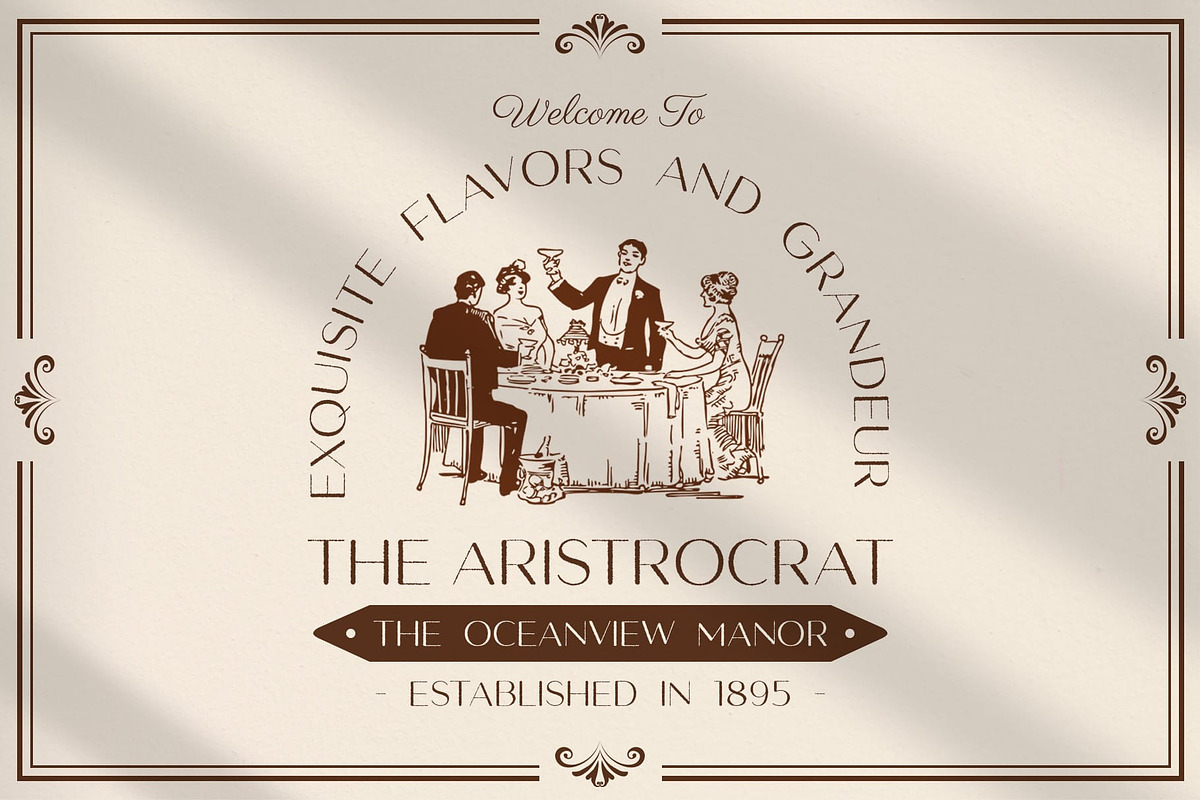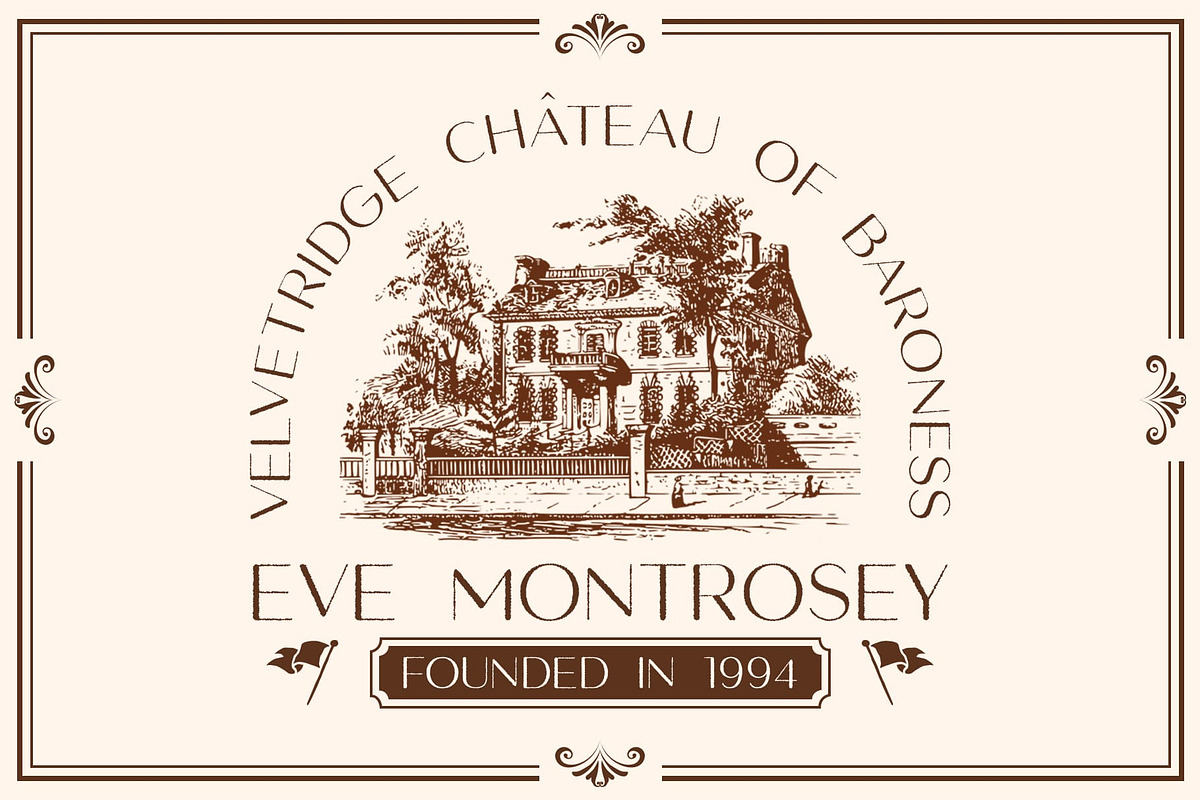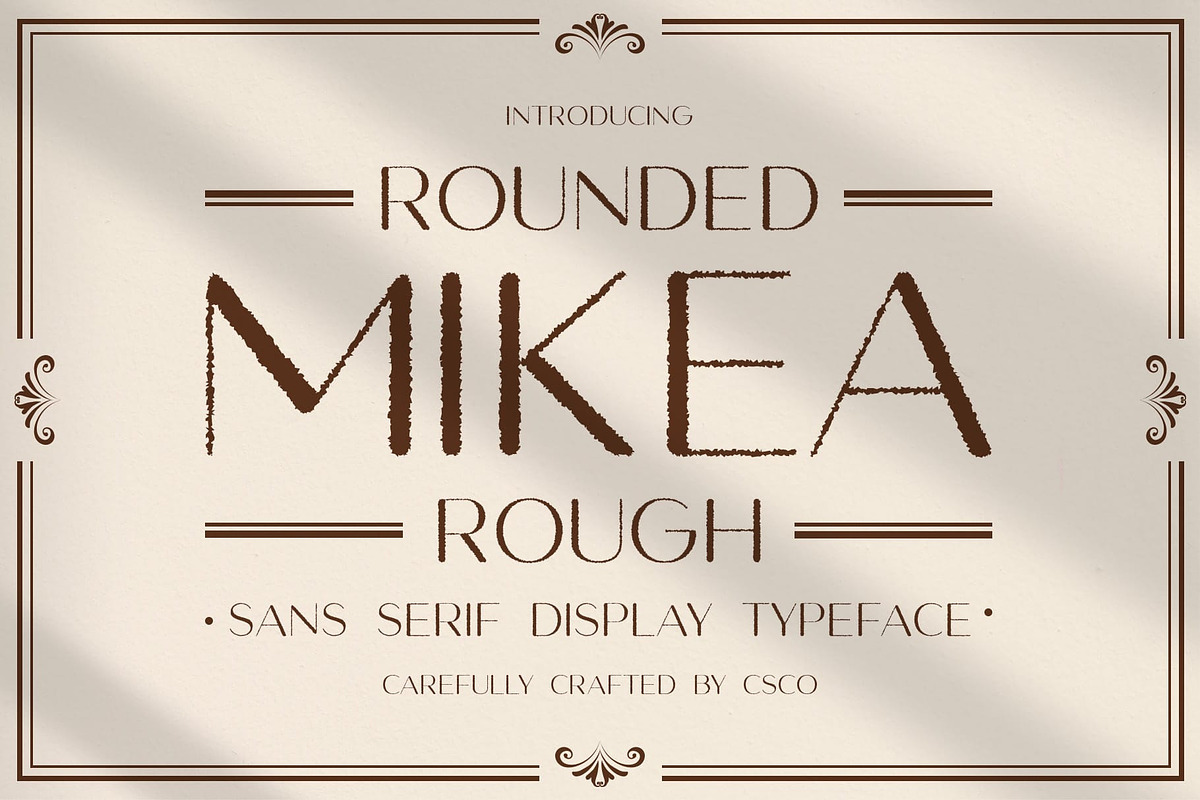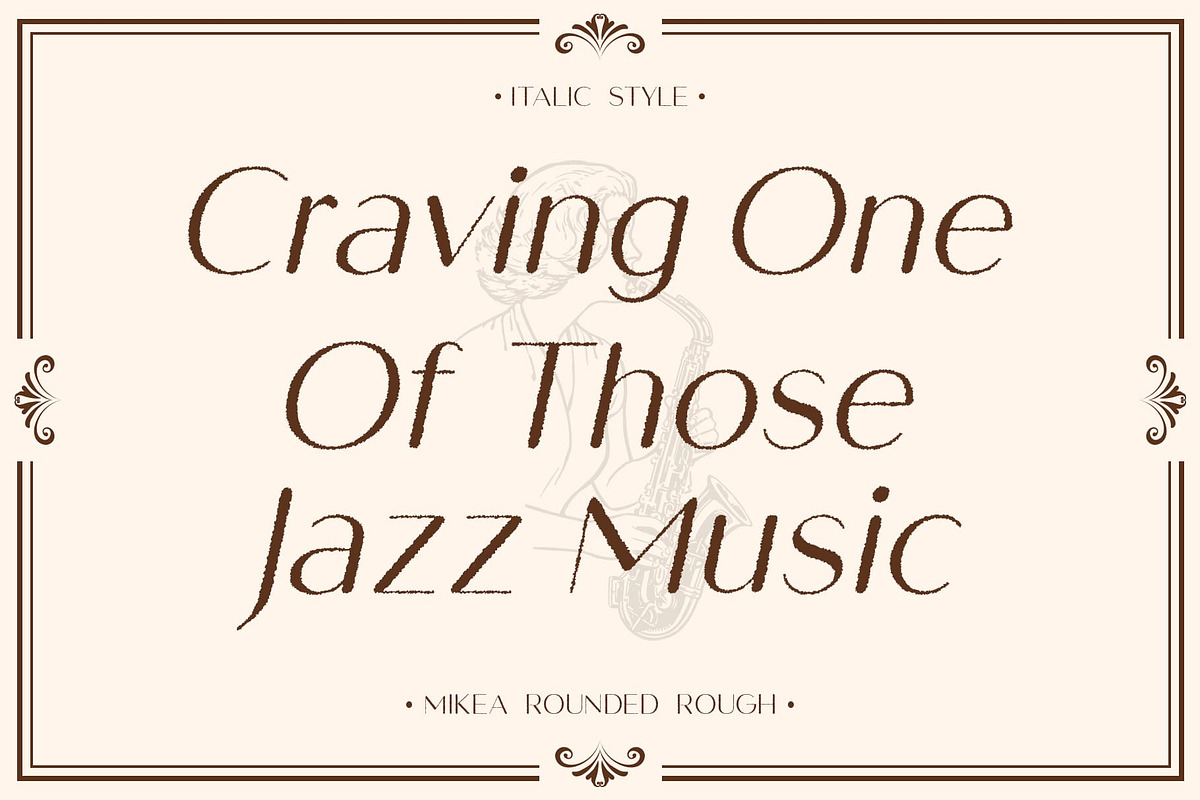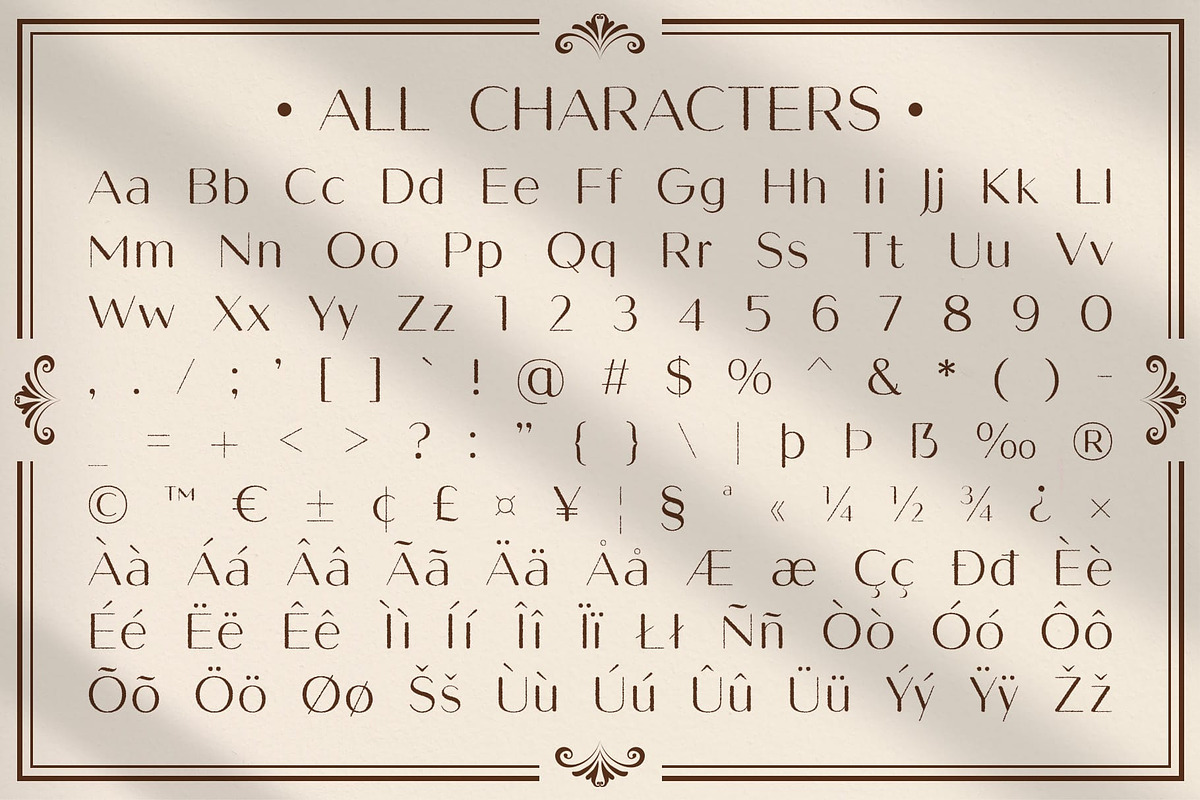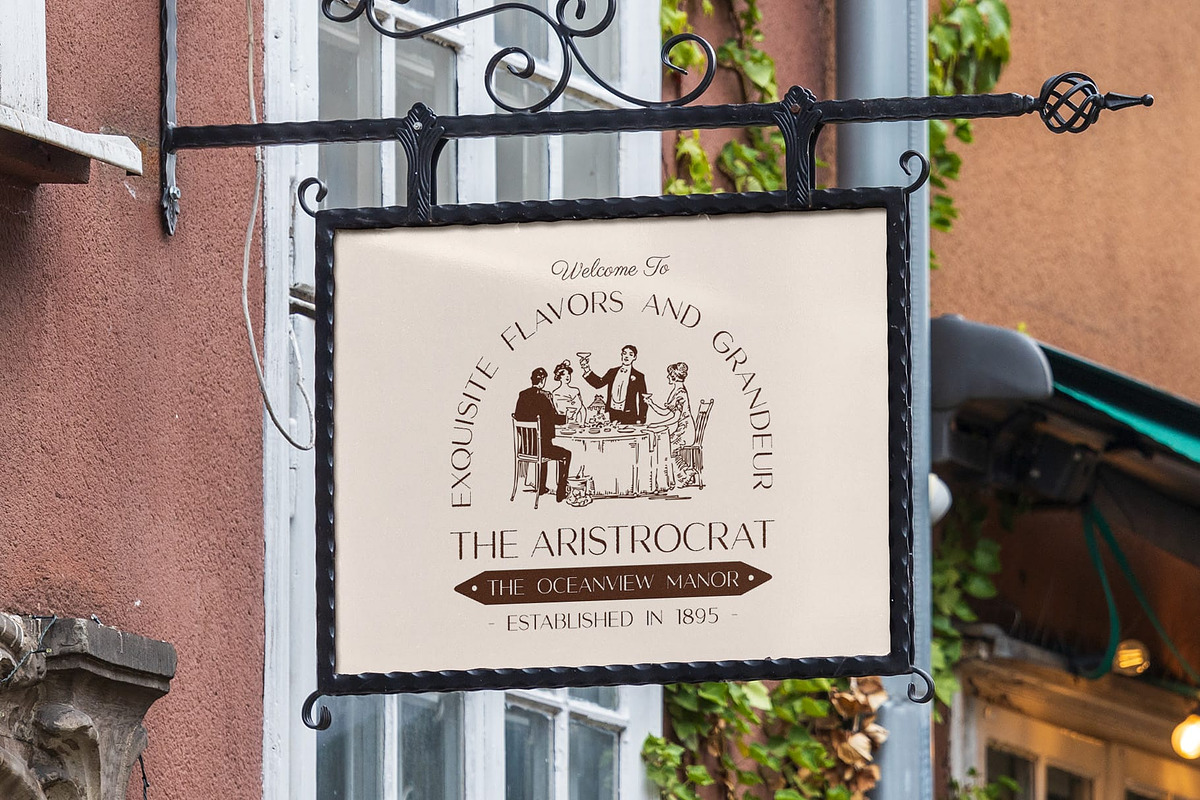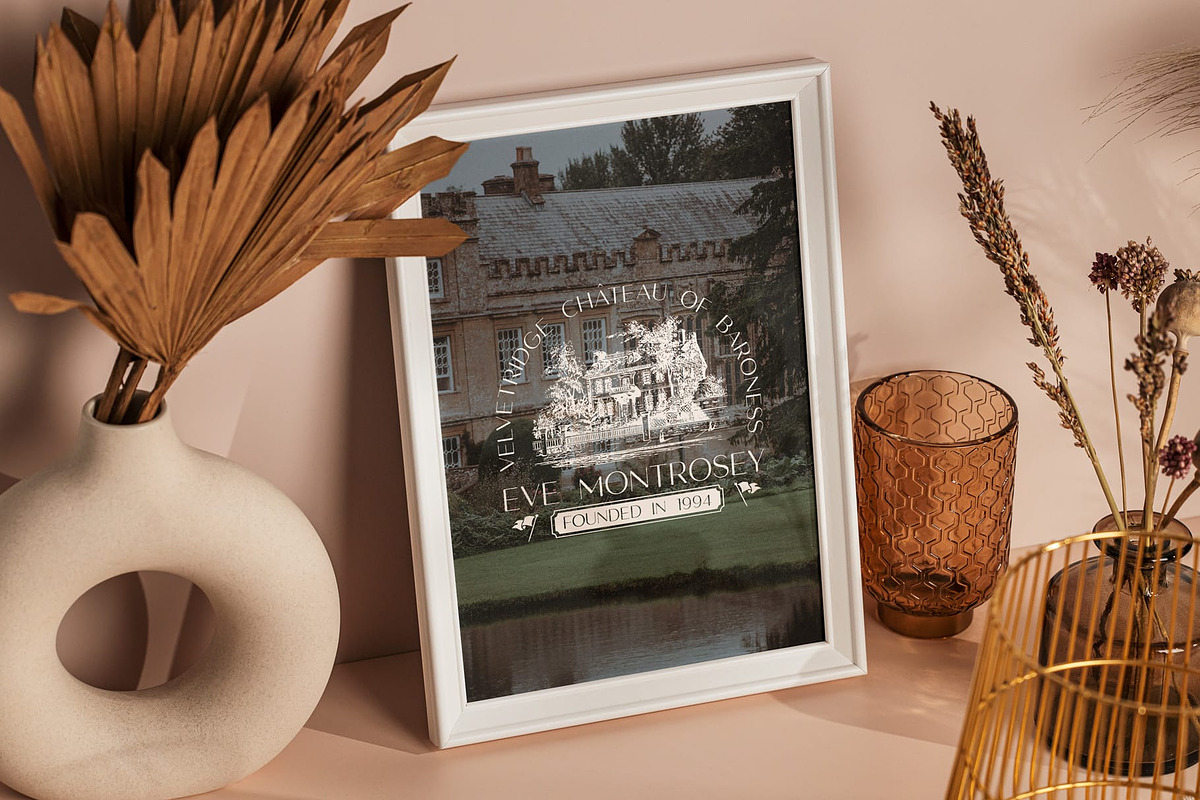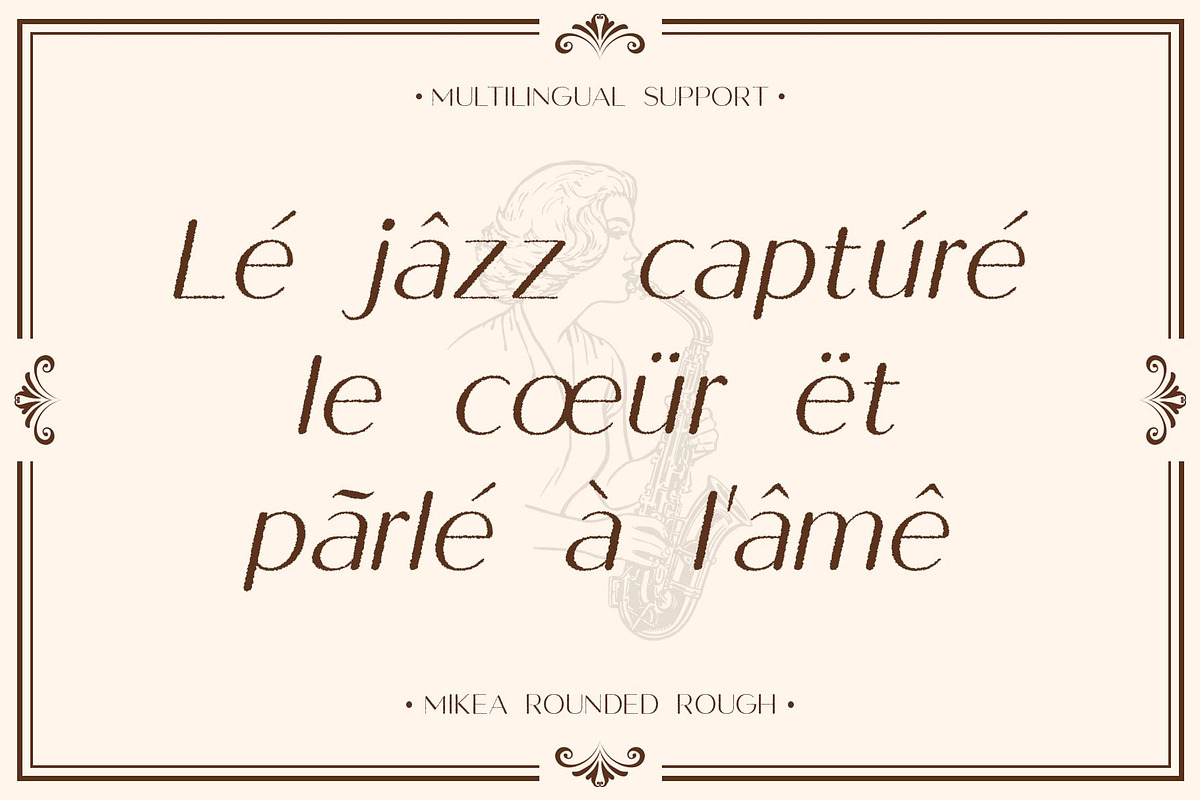
Mikea Rounded Rough
Mikea Rounded Rough Font: A Modern Sans Serif with Character
Charming Minimalism with a Playful Twist Mikea Rounded Rough is a modern sans serif font that seamlessly combines rounded, minimalist shapes with a unique rough effect, creating an elegant yet charming aesthetic. Its soft, clean lines offer a friendly and approachable vibe, making it an ideal choice for designs that aim to connect with their audience on a personal level. The rounded forms contribute to a sense of warmth, ensuring that your message is conveyed with both clarity and a touch of personality.
Distinctive Rough Texture for Added Depth The rough texture applied to Mikea enhances its character, infusing the font with a sense of depth and uniqueness. This playful imperfection sets it apart from traditional sans serifs, allowing it to stand out in a crowded design landscape. The balance of smooth curves and textured details creates an engaging visual dynamic, ensuring that each letter captures attention while maintaining readability.
Versatile Applications Across Design Projects This rounded rough font is highly versatile, making it suitable for a variety of design applications, including branding, packaging, promotional materials, and more. Whether you’re developing a logo for a contemporary brand, designing eye-catching product packaging, or creating engaging marketing materials, this font delivers the elegance and visual appeal necessary for impactful communication.